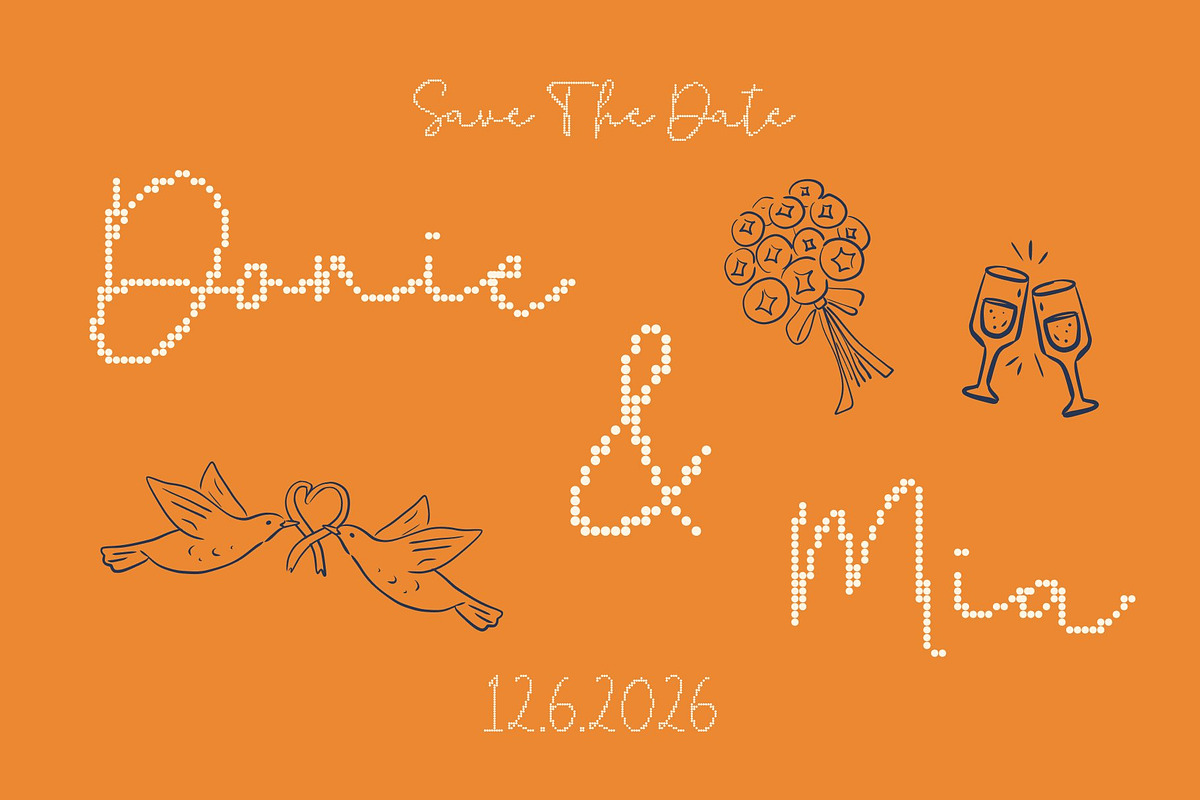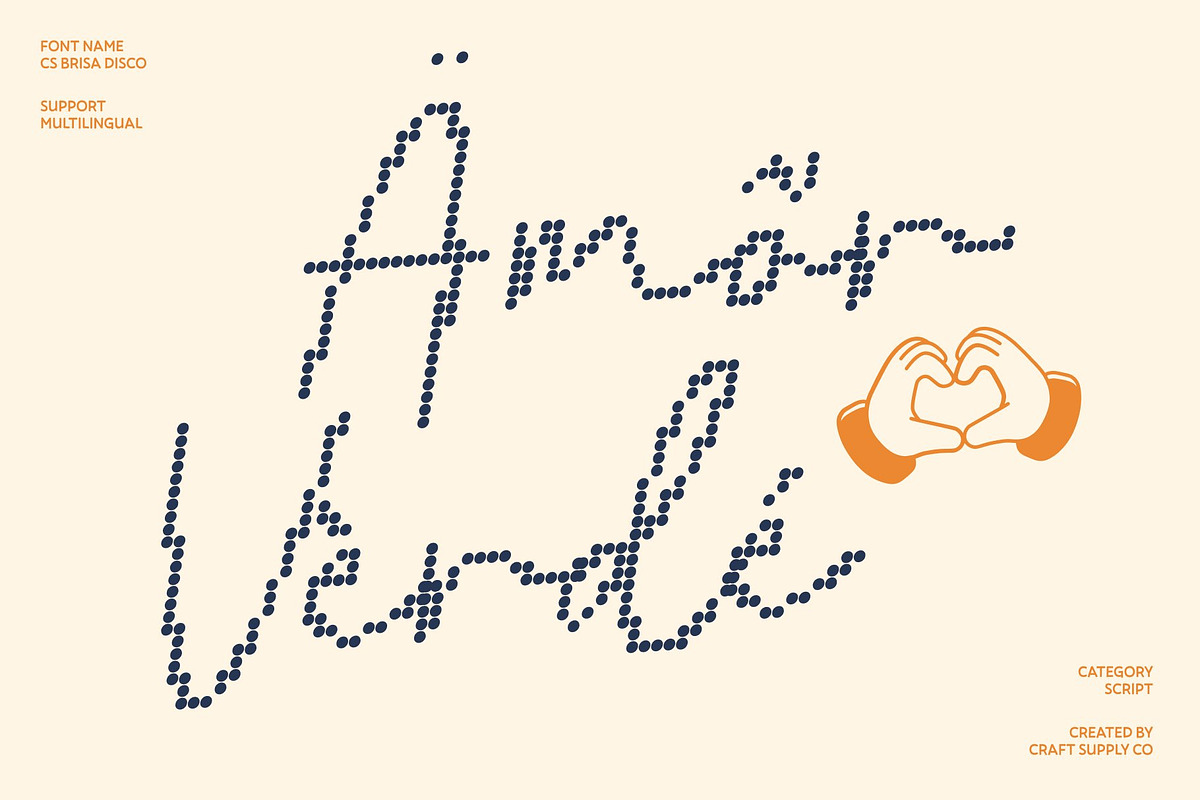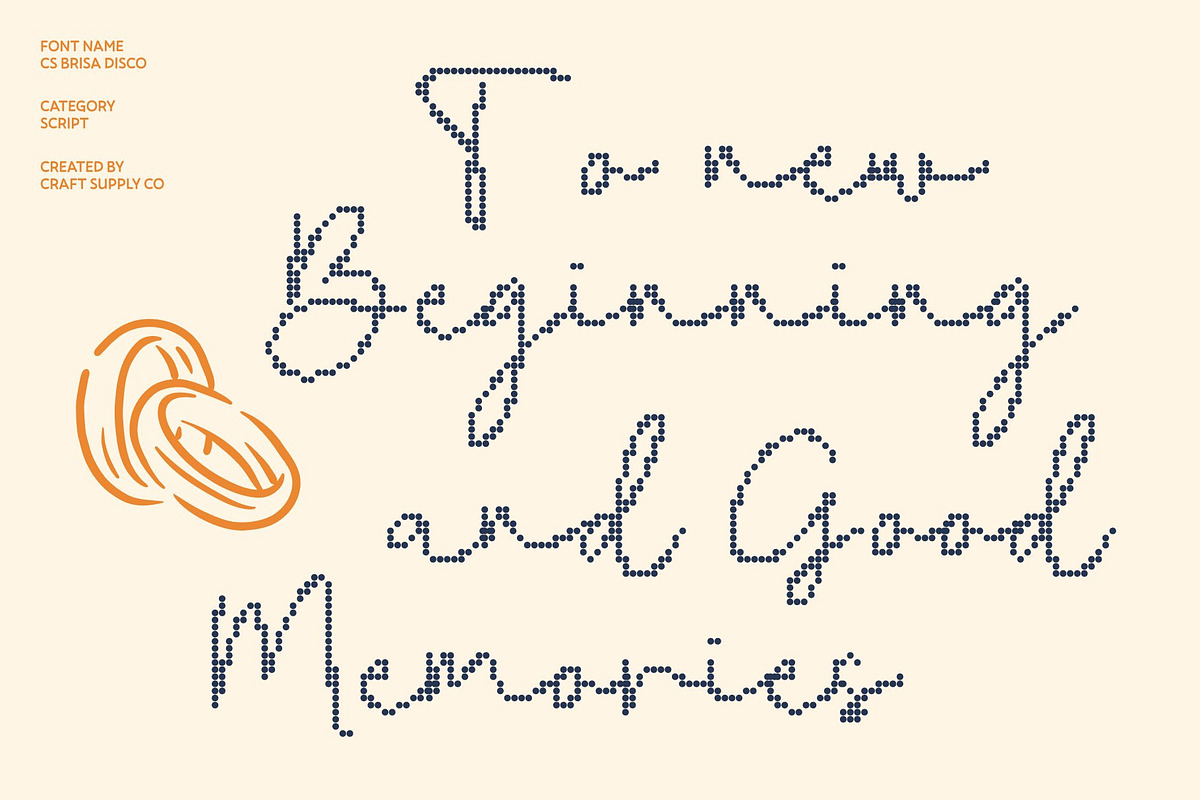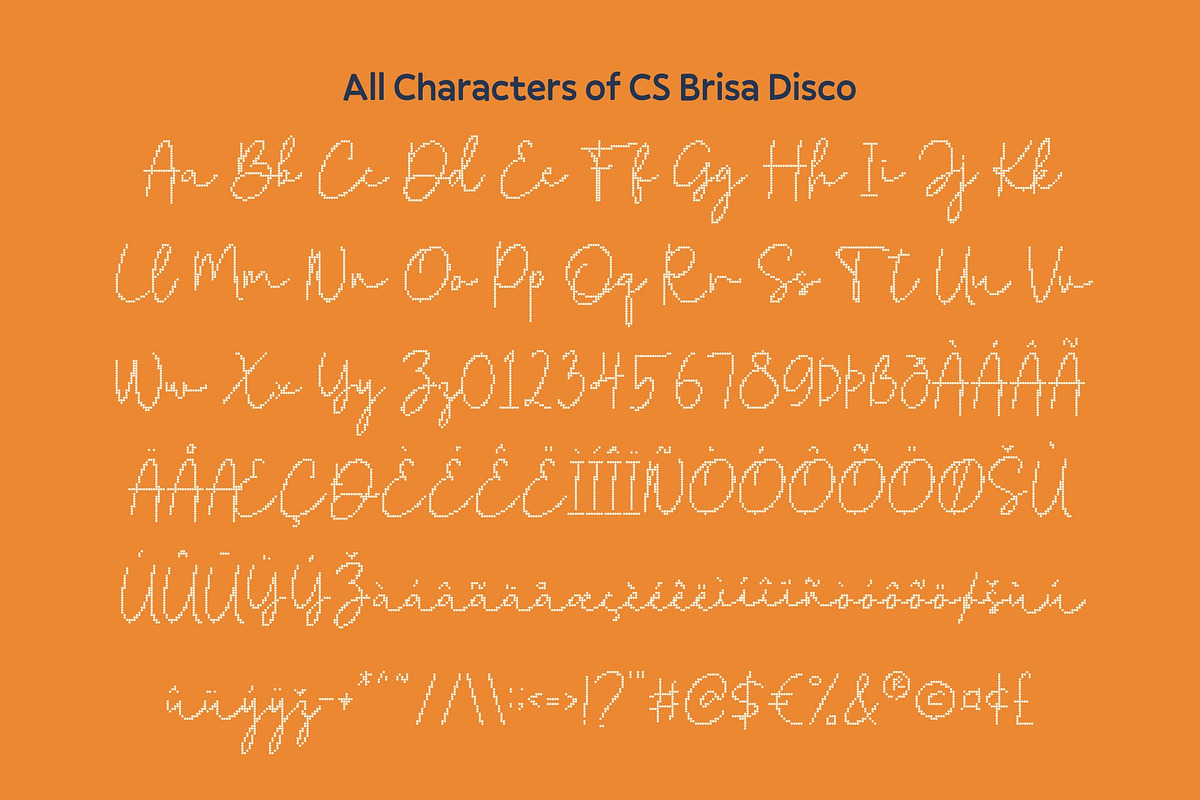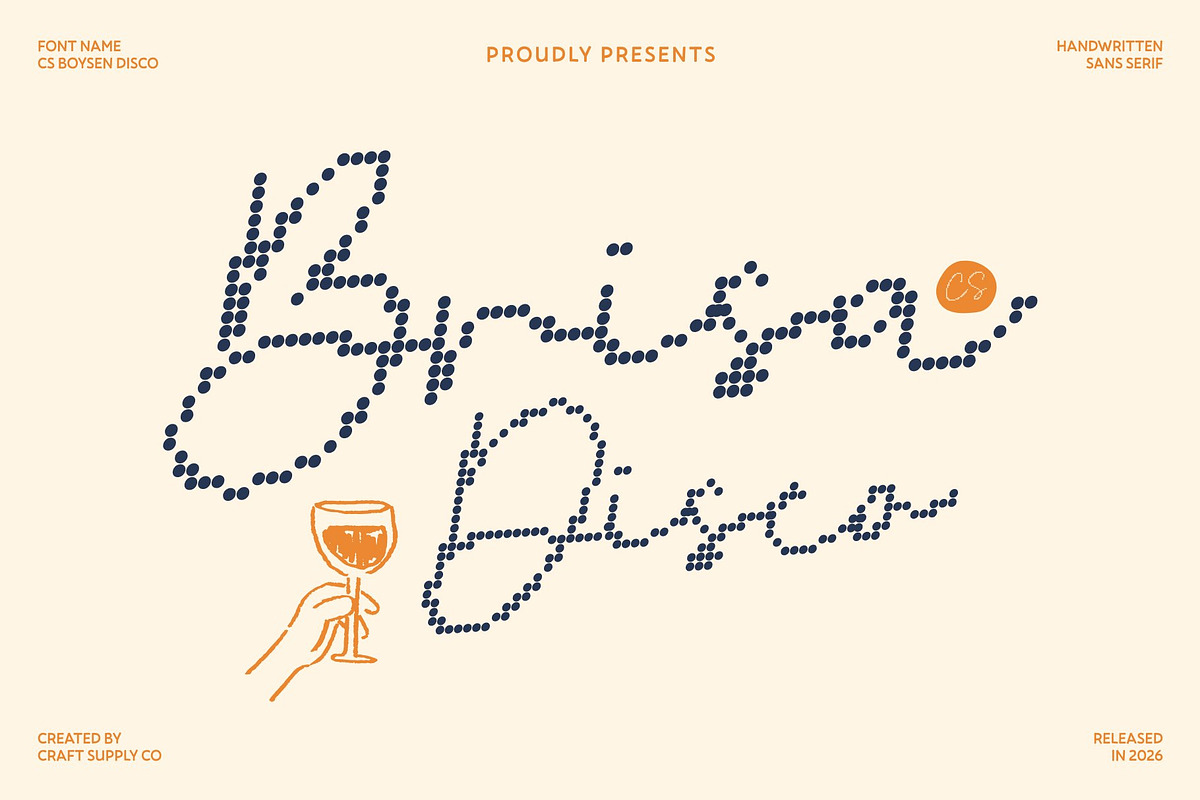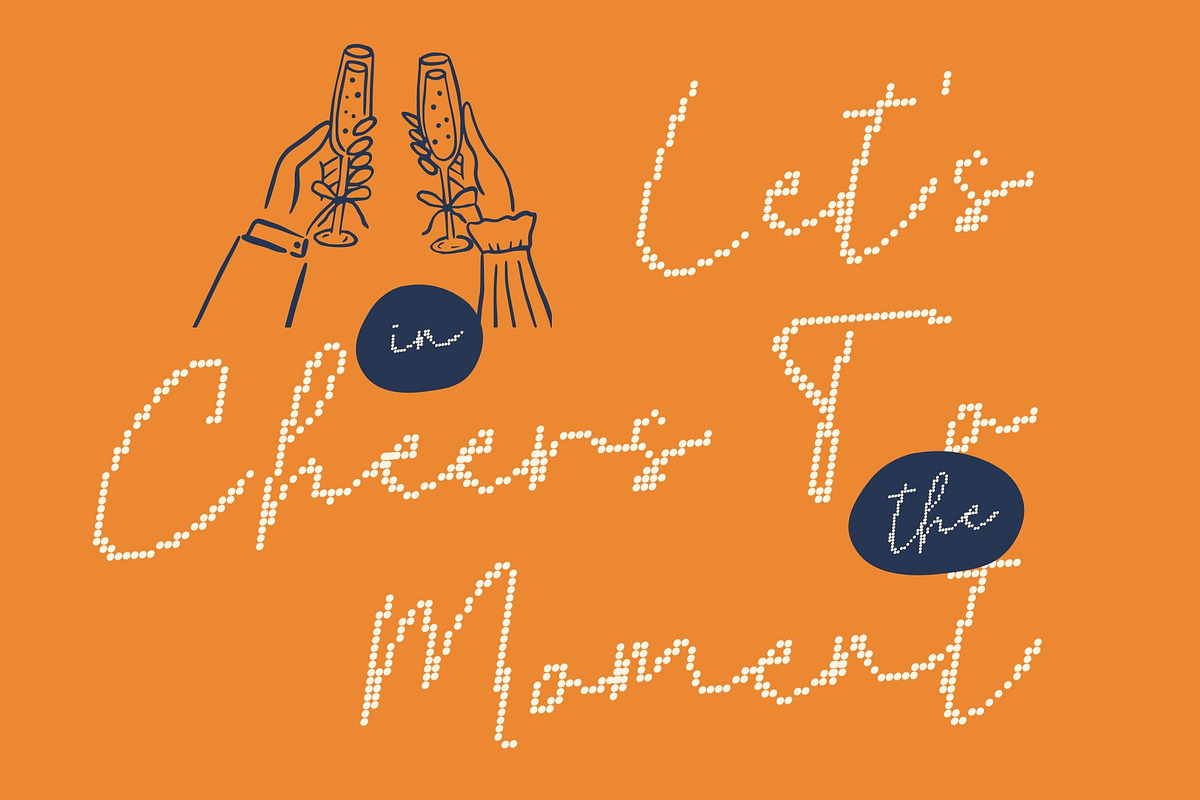
CS Brisa Disco
CS Brisa Disco – Grace in Motion with Luminous Style
Monoline Script with Disco Glow This is an elegant monoline script font defined by smooth, flowing lines and a refined rhythmic groove. Each letter glides effortlessly into the next, creating harmonious movement that feels both graceful and alive. Infused with a subtle disco shimmer, it transforms classic sophistication into something radiant and celebratory.
Flowing Curves with Radiant Elegance Every stroke is crafted with balanced monoline weight and gentle curves, expressing calm confidence and polished beauty. The fluid connections between letters create a seamless visual dance soft yet captivating. Its graceful flow enhances readability while adding a glowing presence that feels luxurious and full of charm.
Rhythmic Motion with Modern Glamour This font carries a stylish rhythm that merges contemporary refinement with timeless appeal. The smooth, continuous strokes echo the elegance of handwritten calligraphy, elevated with a lively sparkle reminiscent of a glamorous evening atmosphere. It’s poised, expressive, and effortlessly chic.
Perfect for Romantic and Luxe Celebrations From wedding invitations and beauty branding to fashion editorials and upscale event materials, this font adapts beautifully to projects that require sophistication with personality. Its blend of simplicity, motion, and disco-inspired radiance makes every composition feel elegant, confident, and ready to shine.
CS Brisa Disco Regular
CS Brisa Disco Italic